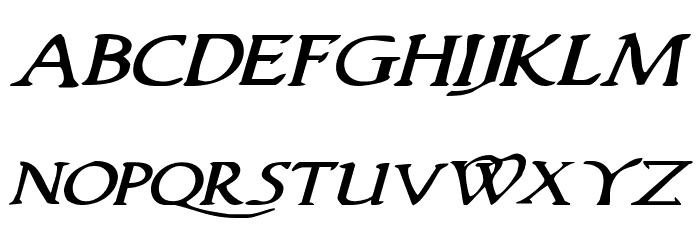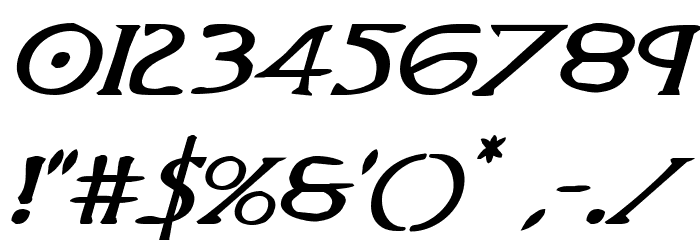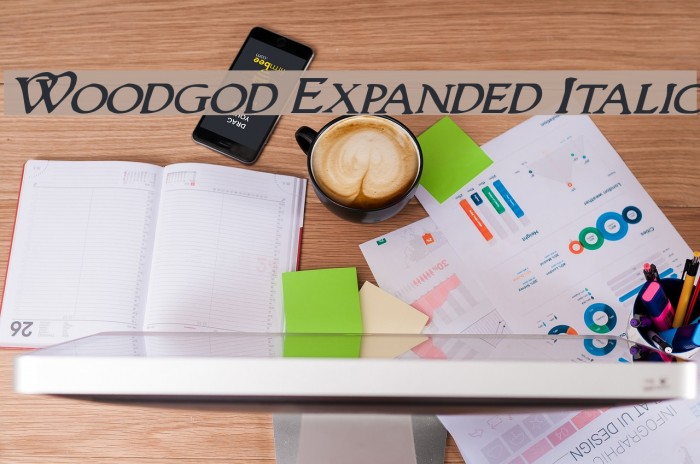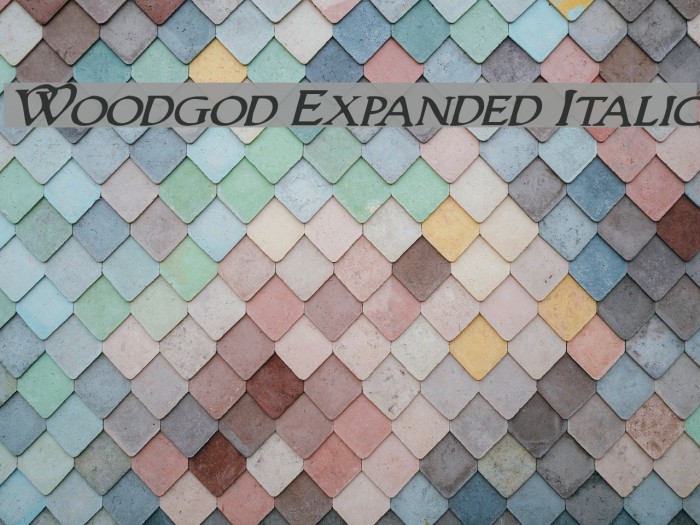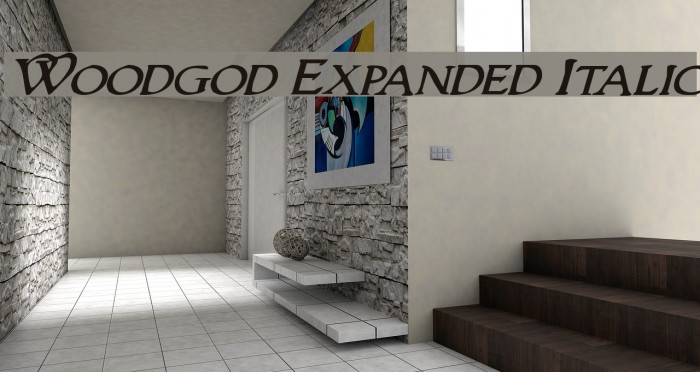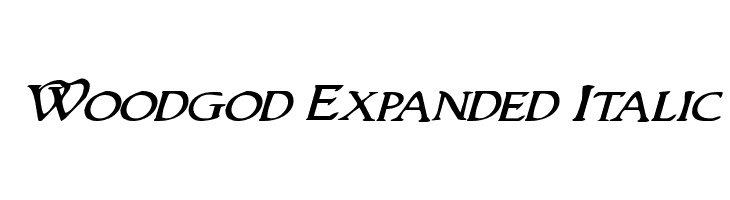
Woodgod Expanded Italic Font
This font features a dynamic and expressive style, characterized by its italicized and expanded letterforms. The strokes are fluid and slightly exaggerated, giving it a sense of movement and elegance. The uppercase and lowercase letters maintain a consistent slant, enhancing the italic nature. The numbers and special characters are designed to match the overall aesthetic, with a playful yet sophisticated flair. The font's unique style makes it stand out, suitable for creative and artistic projects.
An expressive italic font with expanded letterforms and fluid strokes.
- Proposed Projects: Ideal for branding, poster design, invitations, and artistic projects that require a touch of elegance and creativity.
- Use Case: Headlines, Logos, Artistic projects